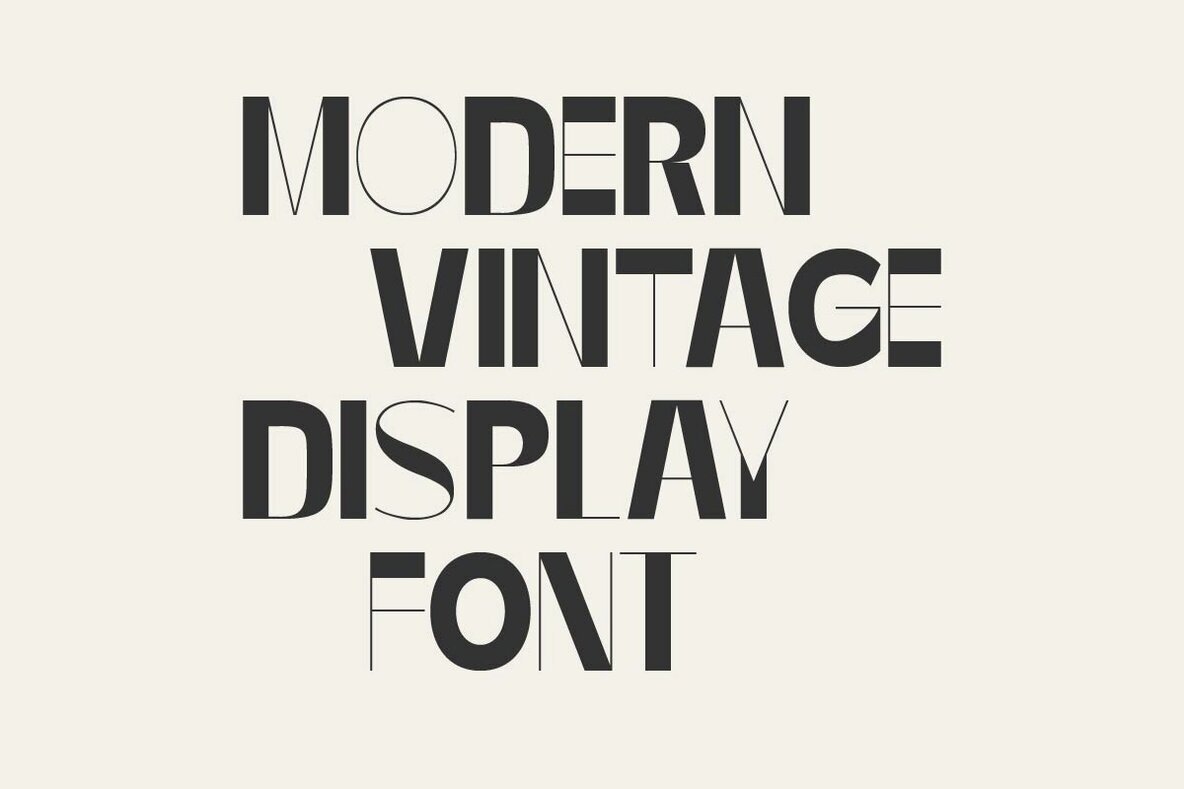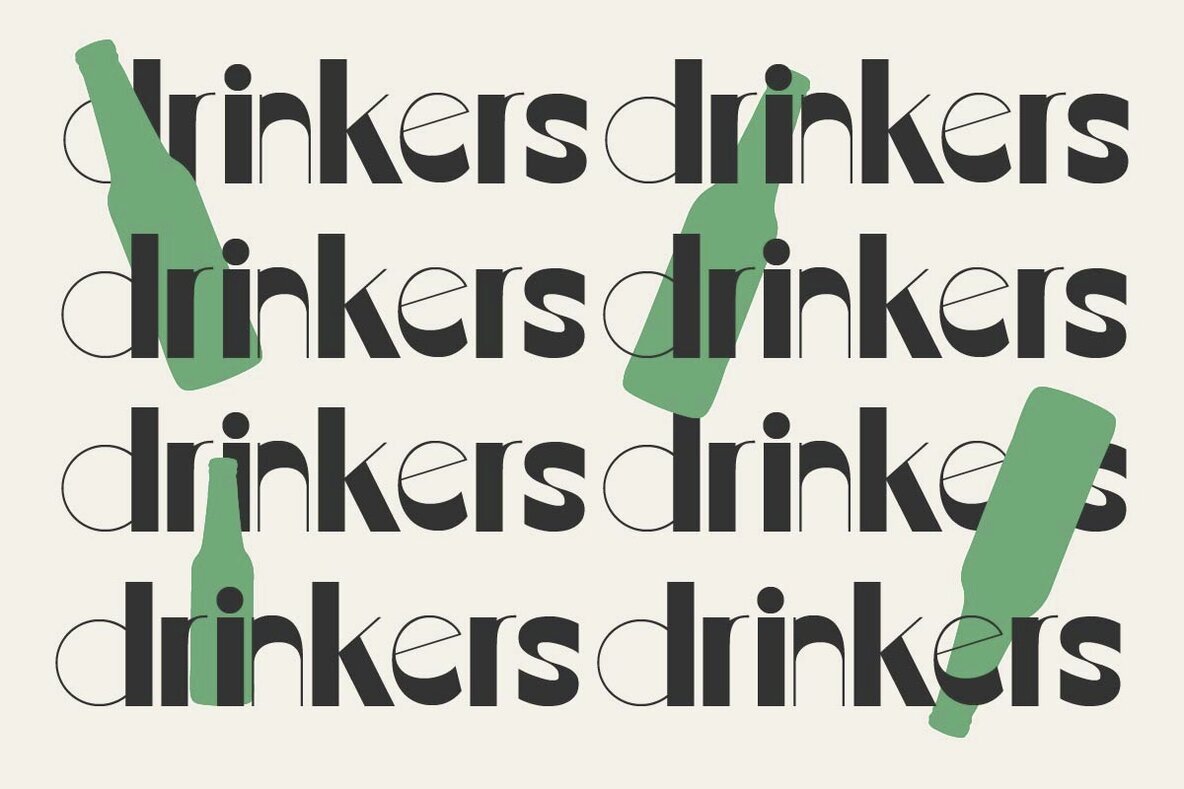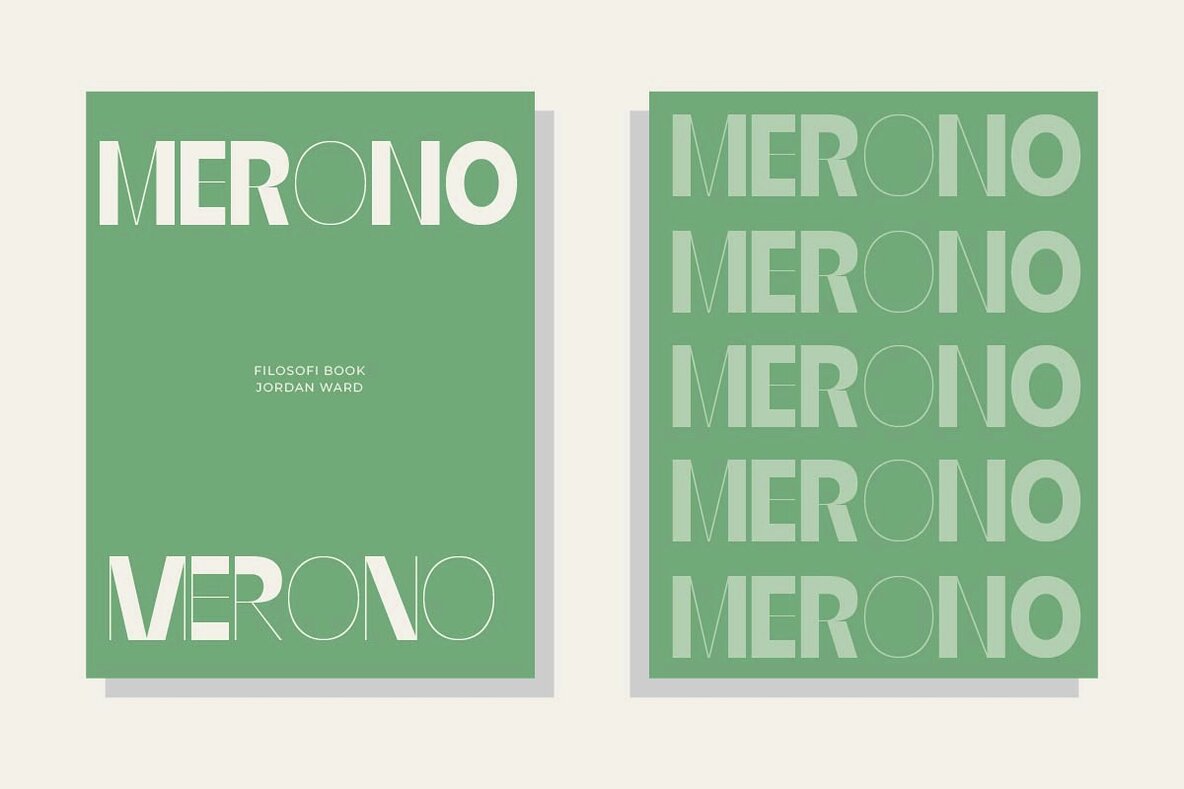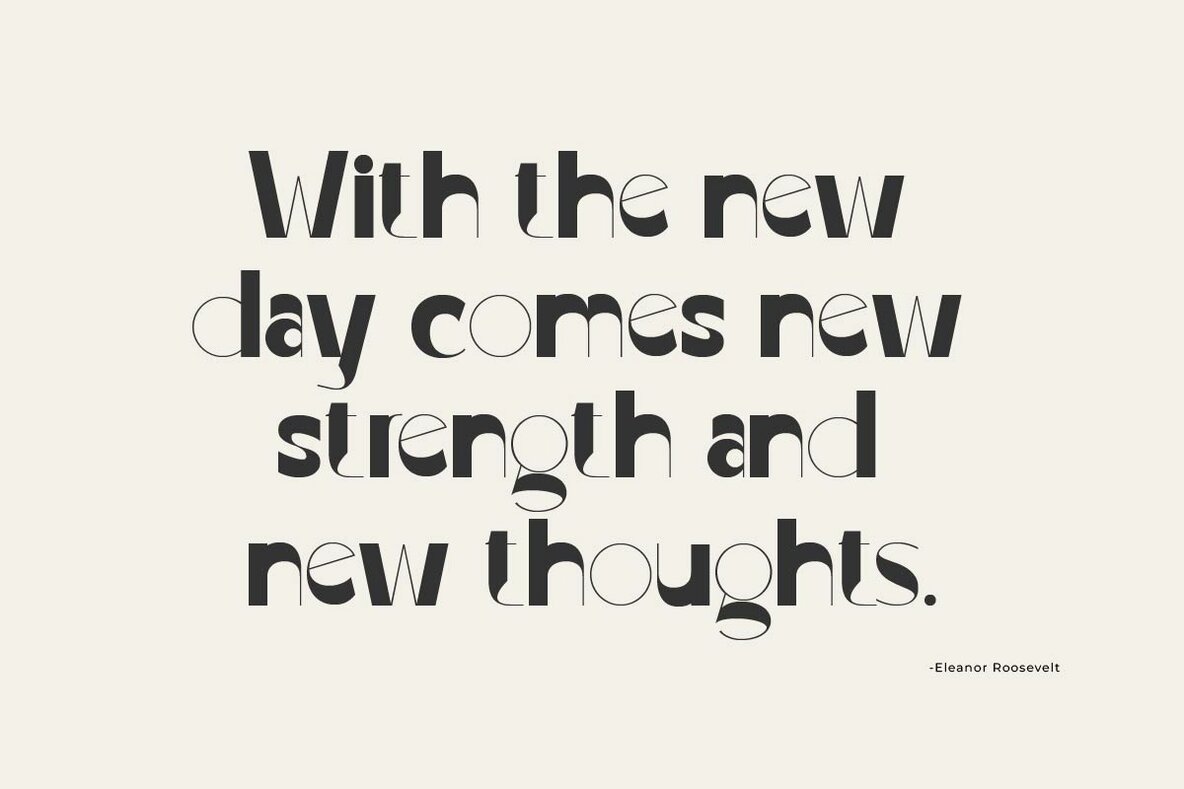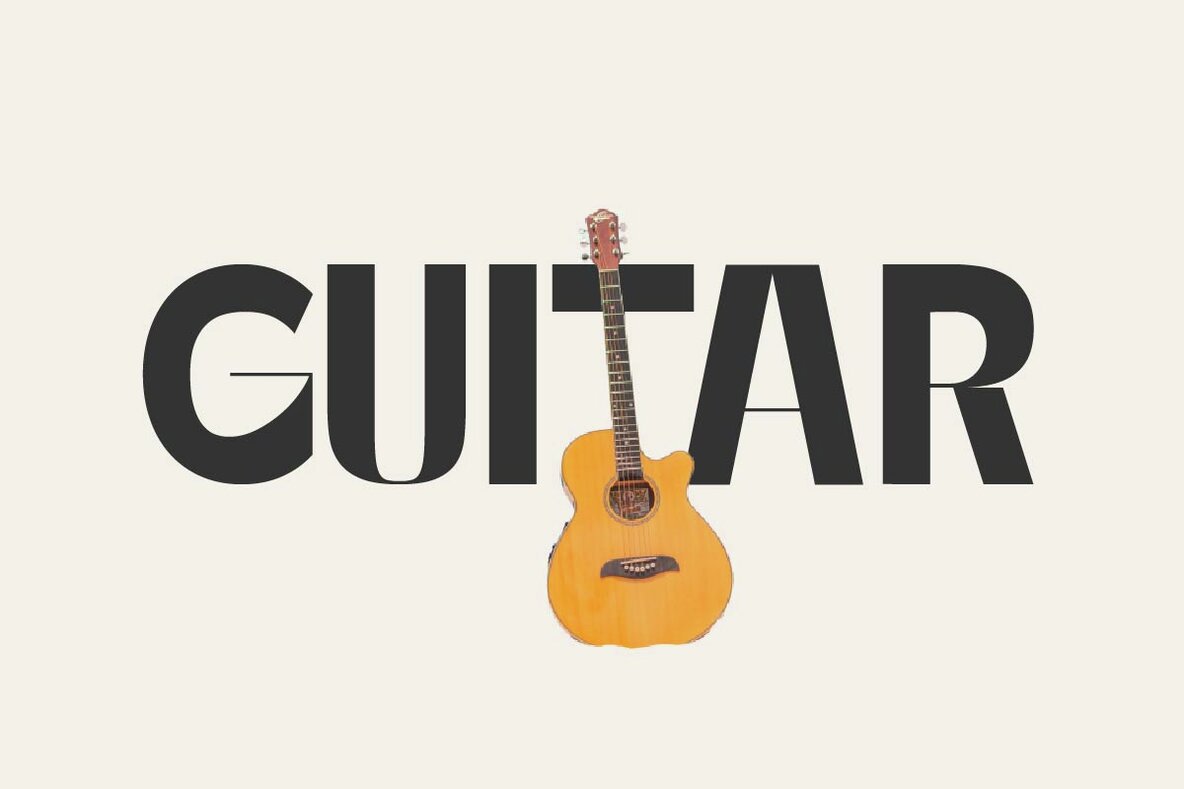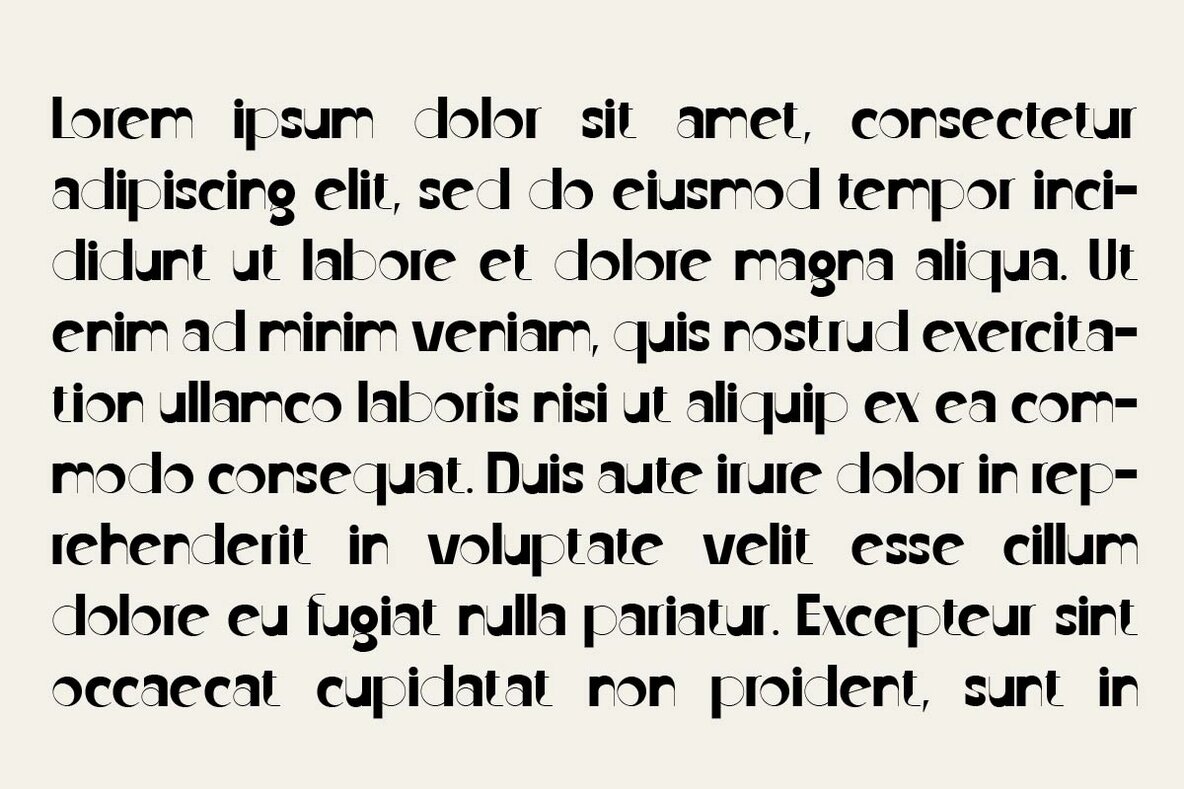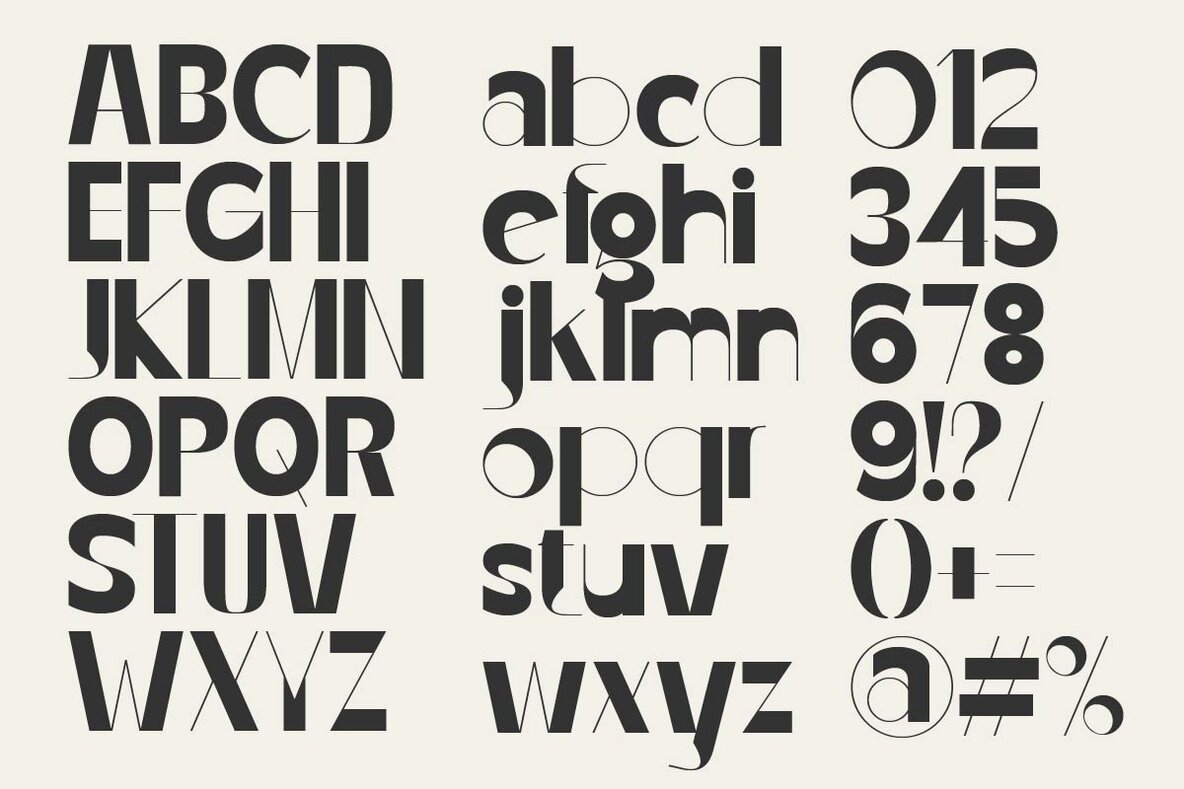
Gabrile Font
Gabrile Regular
Gabriele by Muksal Creative offers a modern display font featuring unique glyphs, ornamentation, and multilingual support. Its versatility makes it ideal for both large and small sizes, seamlessly fitting into various projects including editorial layouts, logo designs, clothing branding, and product packaging. Whether used for magazine headers or as a stylish text overlay on a background image, Gabriele stands out.Gabriele: A Versatile Modern Display Font